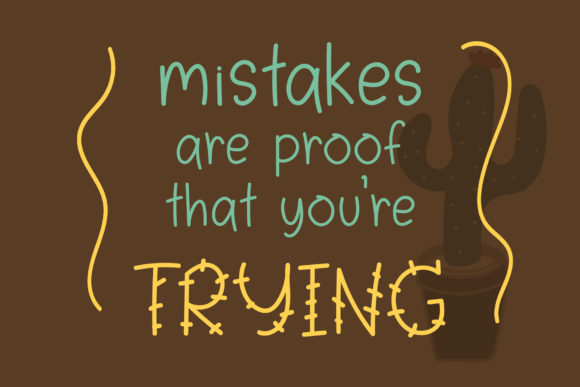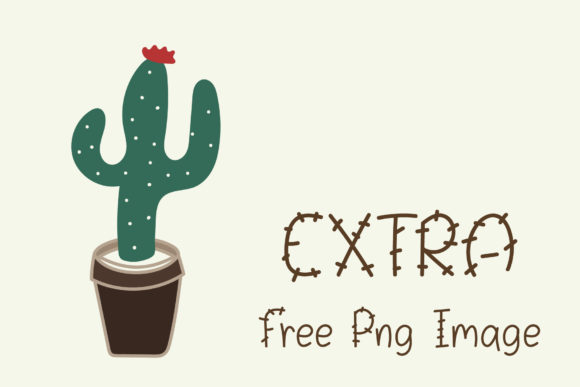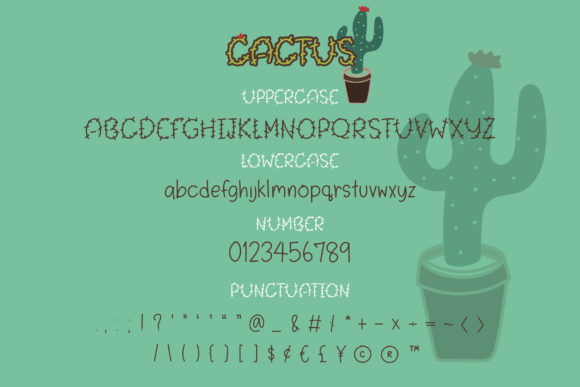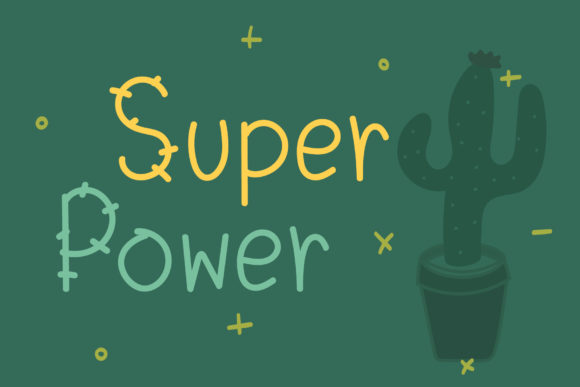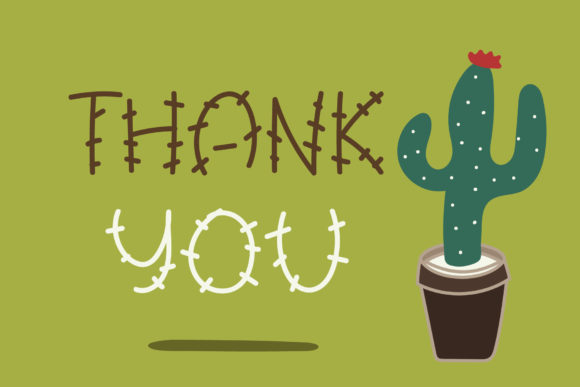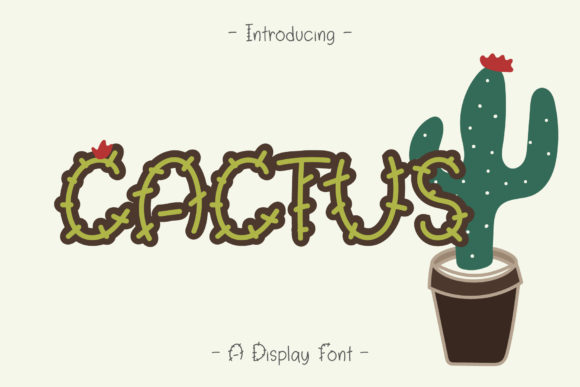
Cactus Font: The Quirky and Authentic Display Font for Your Designs
Are you tired of using the same old fonts for your designs and crafting projects? Look no further than the Cactus Font, a spectacular display font that’s sure to give your work an authentic and quirky look. With its unique and playful style, this font is perfect for designers and crafters who want to add a touch of personality to their projects.
What is Cactus Font?
Cactus Font is a display font that’s inspired by the prickly yet charming cactus plant. It’s a bold and eye-catching font that’s perfect for making a statement in your designs. The font comes with a range of cute extras that make it ideal for crafting projects, such as party invitations, greeting cards, and DIY signs.
Features of Cactus Font
- Unique and Quirky Style: The Cactus Font has a one-of-a-kind style that’s sure to make your designs stand out. Its bold and playful letters are perfect for creating eye-catching headlines and titles.
- Cute Extras: The font comes with a range of cute extras, such as decorative swashes, borders, and icons, that can be used to add a touch of personality to your designs.
- Authentic Look: The Cactus Font has an authentic look that’s perfect for creating designs that look like they’re straight out of a desert landscape.
Uses of Cactus Font
The Cactus Font is perfect for a range of design and crafting projects, including:
- Party Invitations: Use the Cactus Font to create fun and playful party invitations that set the tone for a desert-themed party.
- Greeting Cards: Add a touch of personality to your greeting cards with the Cactus Font, perfect for birthdays, holidays, and special occasions.
- DIY Signs: Use the Cactus Font to create eye-catching DIY signs for your home or office, perfect for directional signs, welcome signs, and more.
- Social Media Graphics: Use the Cactus Font to create engaging social media graphics that stand out from the crowd.
Tips for Using Cactus Font
Here are some tips for using the Cactus Font in your designs:
- Use it as a Headline Font: The Cactus Font is perfect for use as a headline font, where its bold and playful style can really make an impact.
- Pair it with Other Fonts: Experiment with pairing the Cactus Font with other fonts to create a unique and interesting look.
- Add Cute Extras: Take advantage of the cute extras that come with the Cactus Font, such as decorative swashes and icons, to add a touch of personality to your designs.
The Cactus Font is a spectacular display font that’s perfect for designers and crafters who want to add a touch of personality to their projects. With its unique and quirky style, cute extras, and authentic look, this font is sure to make your designs stand out. Whether you’re creating party invitations, greeting cards, DIY signs, or social media graphics, the Cactus Font is a great choice.
- What is the Cactus Font?: The Cactus Font is a display font that’s inspired by the prickly yet charming cactus plant.